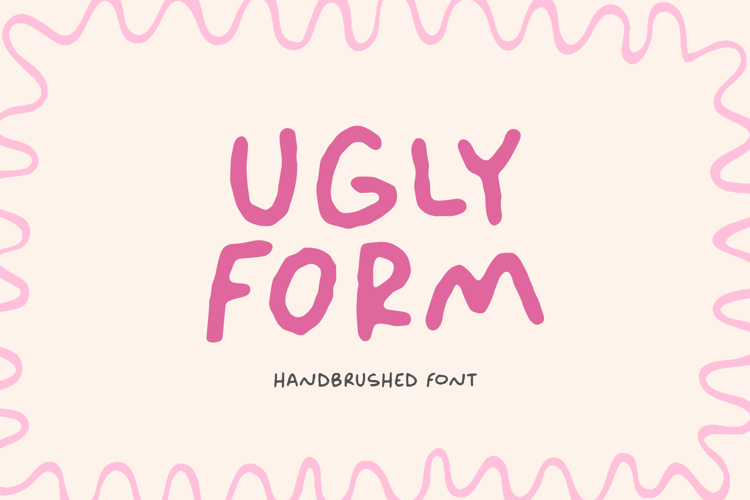
Ugly Form Font
Ugly Form is a Handbrushed Font
This font is a bold handbrushed font with a raw, expressive character. Its rough strokes and imperfect texture bring a rebellious, edgy feel to posters, branding, apparel, album artwork, and creative designs.
Ugly Form Font also supports multilingualism